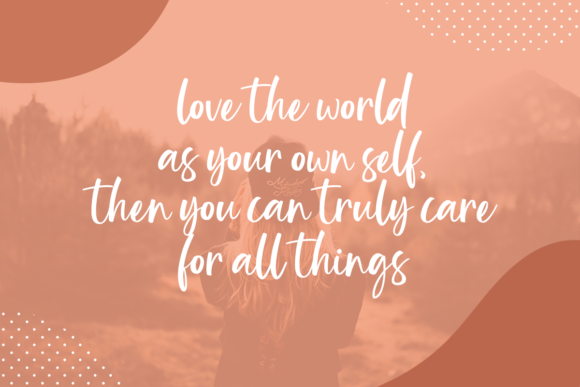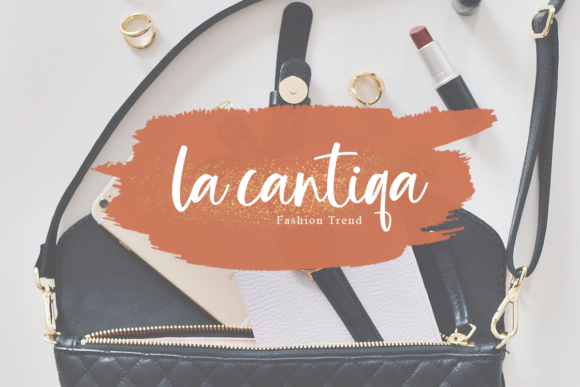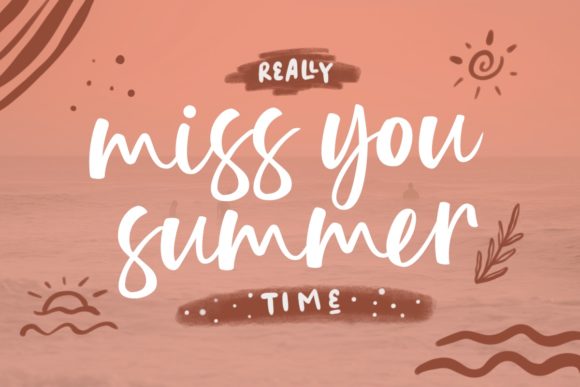
Introduction to Blindsay Font
Blindsay embodies fun, quirkiness and authenticity.
This enchanting handwritten font will turn any creative idea into a true standout .
Why Choose Blindsay Font?
Blindsay Font offers exceptional quality and versatility, making it a valuable addition to your design toolkit. Whether you’re creating for personal projects or commercial use, Blindsay Font delivers professional results.